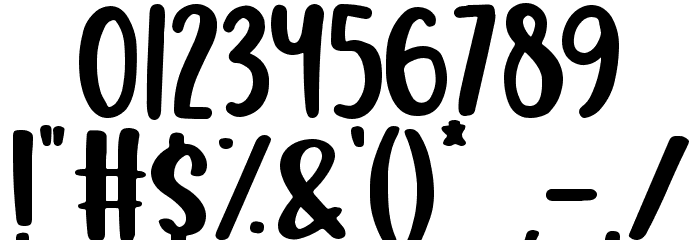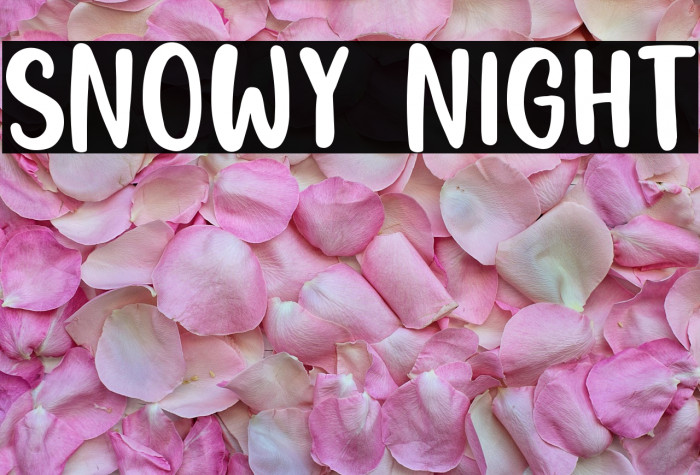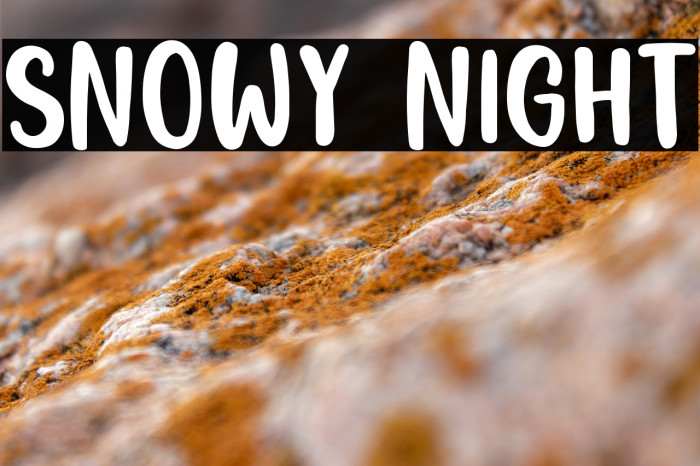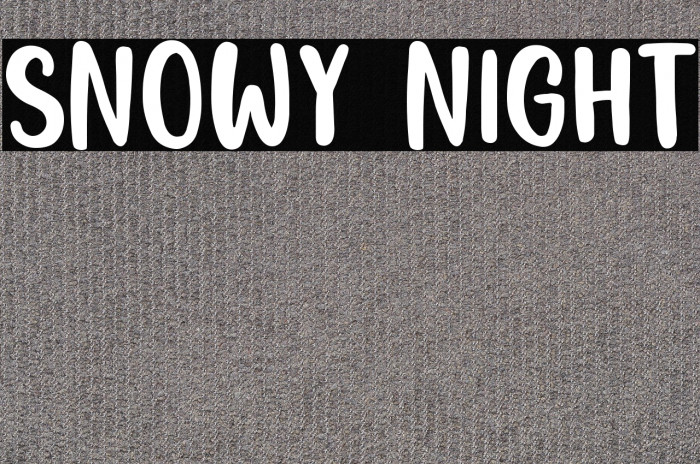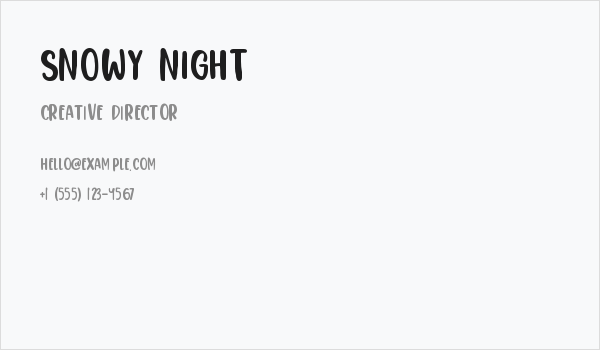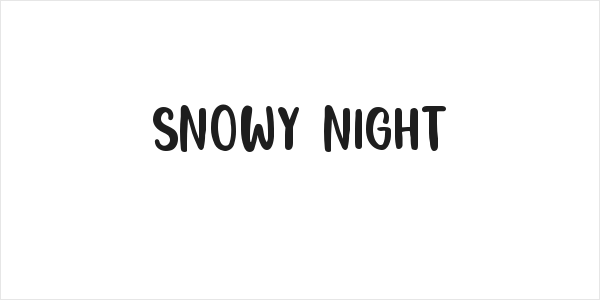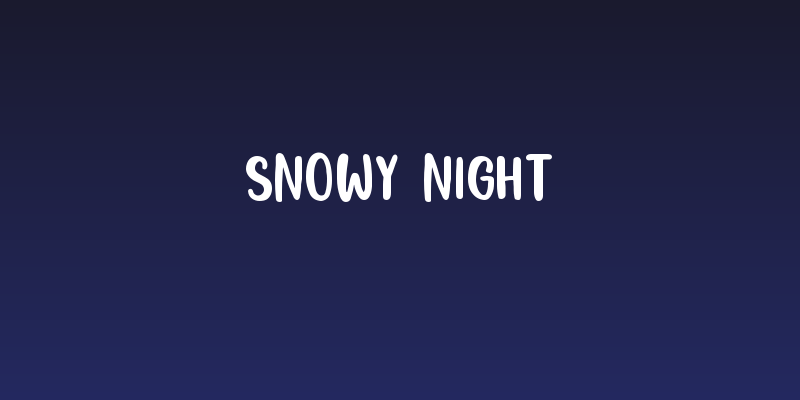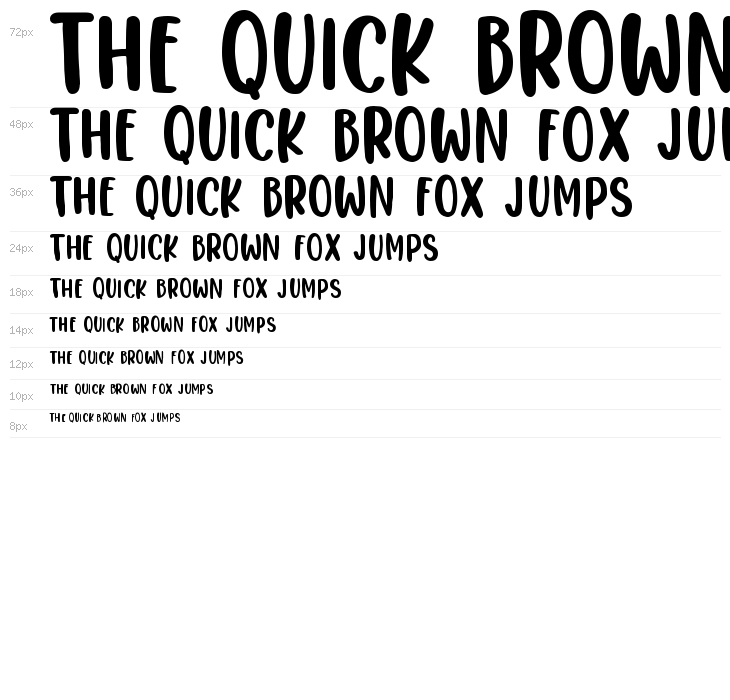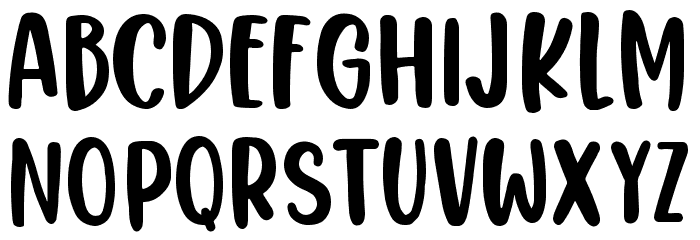
Snowy Night Font
Snowy Night Description
This font features a playful and bold handwritten style, characterized by its rounded edges and consistent stroke width. The letters are slightly condensed, giving a compact appearance while maintaining readability. The uppercase and lowercase letters share a cohesive design, with smooth curves and a friendly aesthetic. The numerals and special characters are designed to match the overall style, ensuring uniformity across all glyphs. This font's informal and approachable look makes it suitable for various creative applications.
| Proposed Projects | Ideal for children's books, greeting cards, playful branding, and social media graphics. |